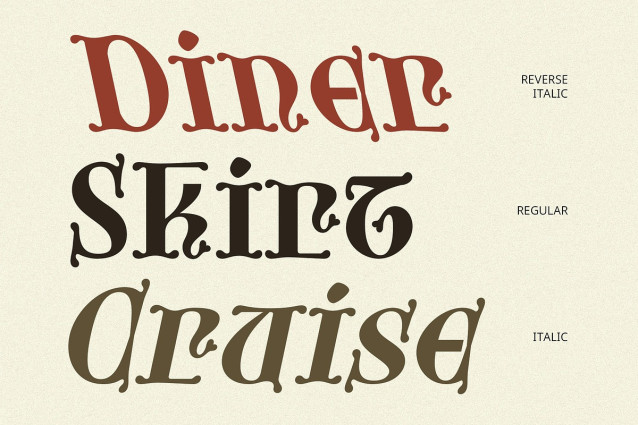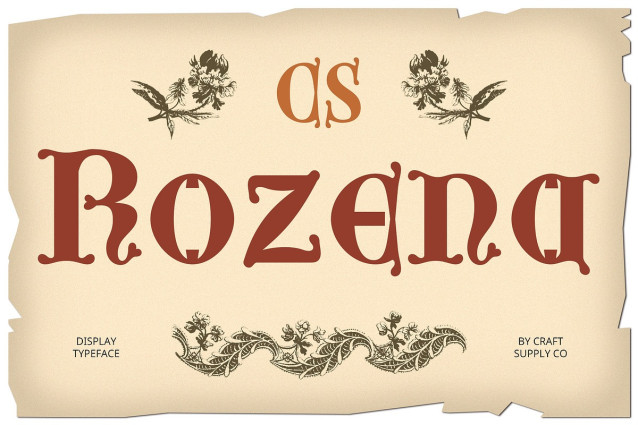
CS Rozena Font
CS Rozena Font is a display font inspired by the classic uncial script, featuring rounded, flowing letterforms that echo the grace of medieval Latin manuscripts. It brings an ancient elegance to modern typography, perfect for designs that call for tradition, artistry, and a timeless presence.
Medieval Elegance with Rounded Forms The font’s uncial style is characterized by soft curves and wide letterforms, reflecting the beauty of hand-crafted script from the early centuries. These features lend a graceful and distinguished tone that feels both artistic and historic.
Historical and Artistic Character CS Rozena evokes the essence of illuminated texts and monastic calligraphy, adding depth and authenticity to any visual project. Its aesthetic is ideal for transporting viewers into realms of myth, legend, and tradition.
Perfect for Fantasy and Classical Themes Whether used for fantasy book covers, mythology-based branding, event invitations, or historical editorials, CS Rozena delivers a sense of refined nostalgia and cultural richness.
A Timeless Touch for Creative Expression With its unique blend of the old and new, CS Rozena offers designers a chance to explore ancient elegance in a modern context—making it the perfect choice for designs that want to honor tradition while standing out visually.